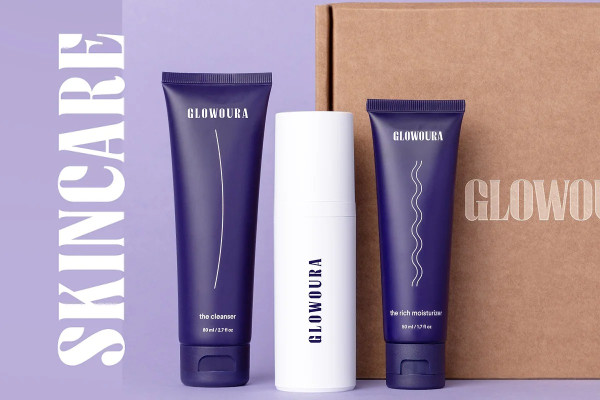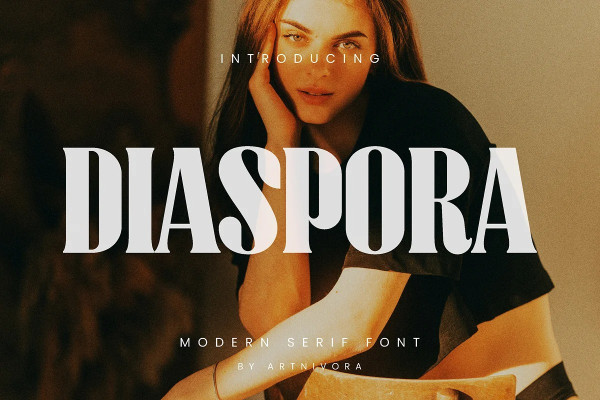
Diaspora Font
Diaspora Font, a simple and elegant serif font. So perfect for you who needs a typeface for logo designs, magazine, social media, brochure, and many more.